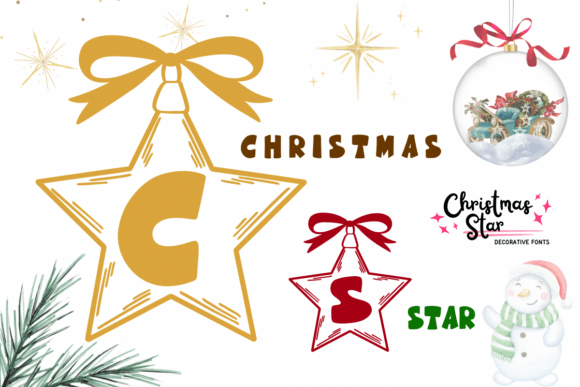
The Magic of Christmas Star Font: A Creative Spark
As the holiday season approaches, many of us find ourselves in a flurry of creative activity – decorating the tree, baking festive treats, and crafting handmade gifts for loved ones. But amidst all the hustle and bustle, one of the most exciting moments is when we get to add that special something to our designs. For many of us, this spark comes in the form of the perfect font, and this year, I’m excited to share with you a festive favorite: the Christmas Star Font.
This charming decorative font is designed to evoke the magic and wonder of the holiday season. With its playful, whimsical style, it’s perfect for adding a touch of cheer to your notes, diaries, and greeting cards. But its versatility extends far beyond the traditional – use it to create eye-catching banners, social media posts, and even merchandise like mugs and t-shirts. Whether you’re a seasoned designer or a crafty hobbyist, the Christmas Star Font is sure to bring a little extra sparkle to your creations.
Christmas Star Font Key Features
- Font Styles: This font comes in various styles, including Regular, Italic, Bold, and Bold Italic, to cater to different design needs.
- Unique Characteristics: The font features a unique star-shaped design, making it perfect for festive and holiday-themed projects, such as Christmas cards, invitations, and decorations.
Christmas Star Font Review
I recently had the chance to work with the Christmas Star Font, and here’s my honest take on it.
- Unique design: The font has a distinct, festive look that immediately screams “Christmas” – perfect for holiday-themed projects.
- Playful feel: The font’s whimsical nature makes it a great choice for designs that need a touch of cheer and fun.
- Customization options: The font comes with a range of customization options, allowing you to fine-tune its look to fit your specific design needs.
- Limited legibility: In some cases, the font’s intricate design can make it difficult to read, especially at smaller font sizes.
- Not ideal for body text: Due to its playful nature, the font may not be the best choice for large blocks of text or body copy.
Overall impression
The Christmas Star Font is a fun, festive choice that’s perfect for holiday-themed projects or designs that need a touch of whimsy. While it may not be the best choice for all types of projects, it’s definitely a unique and eye-catching option that can add some holiday cheer to your designs.
The Christmas Star Font is perfect for creating festive and eye-catching designs for the holiday season. Use it to create:
– Holiday cards and invitations
– Gift tags and wrapping paper
– Social media posts and graphics
– Party decorations and signage
To get the most out of the Christmas Star Font, try combining it with other festive elements, such as:
– Holly leaves and berries
– Snowflakes and snowmen
– Candy canes and gingerbread men
– Bright and bold colors